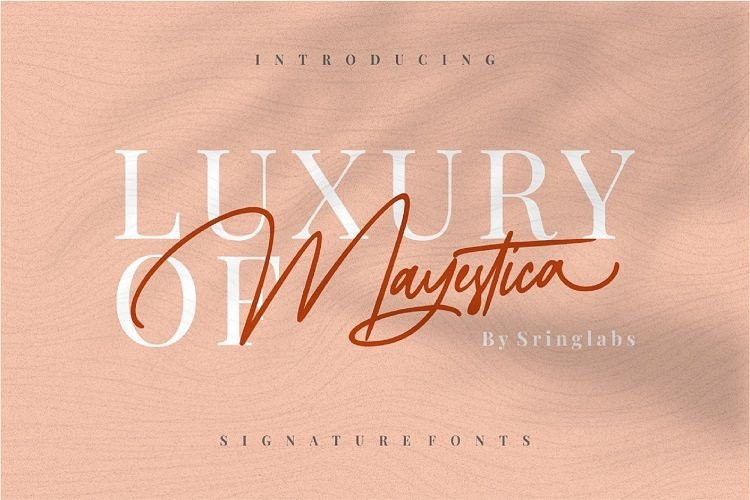
Mayestica Signature Font
This is signature handwritten. Its simplicity & versatility is perfect for any creative projects. Introducing Mayestica Font. This Font can be used for any variety of purposes, such as: Photography, Wedding, Ceremony, Packaging Products, Logo Type, Branding, T-Shirt Design, Website/Blog, Headline Magazine, Brochures and also can be used for personal purpose.